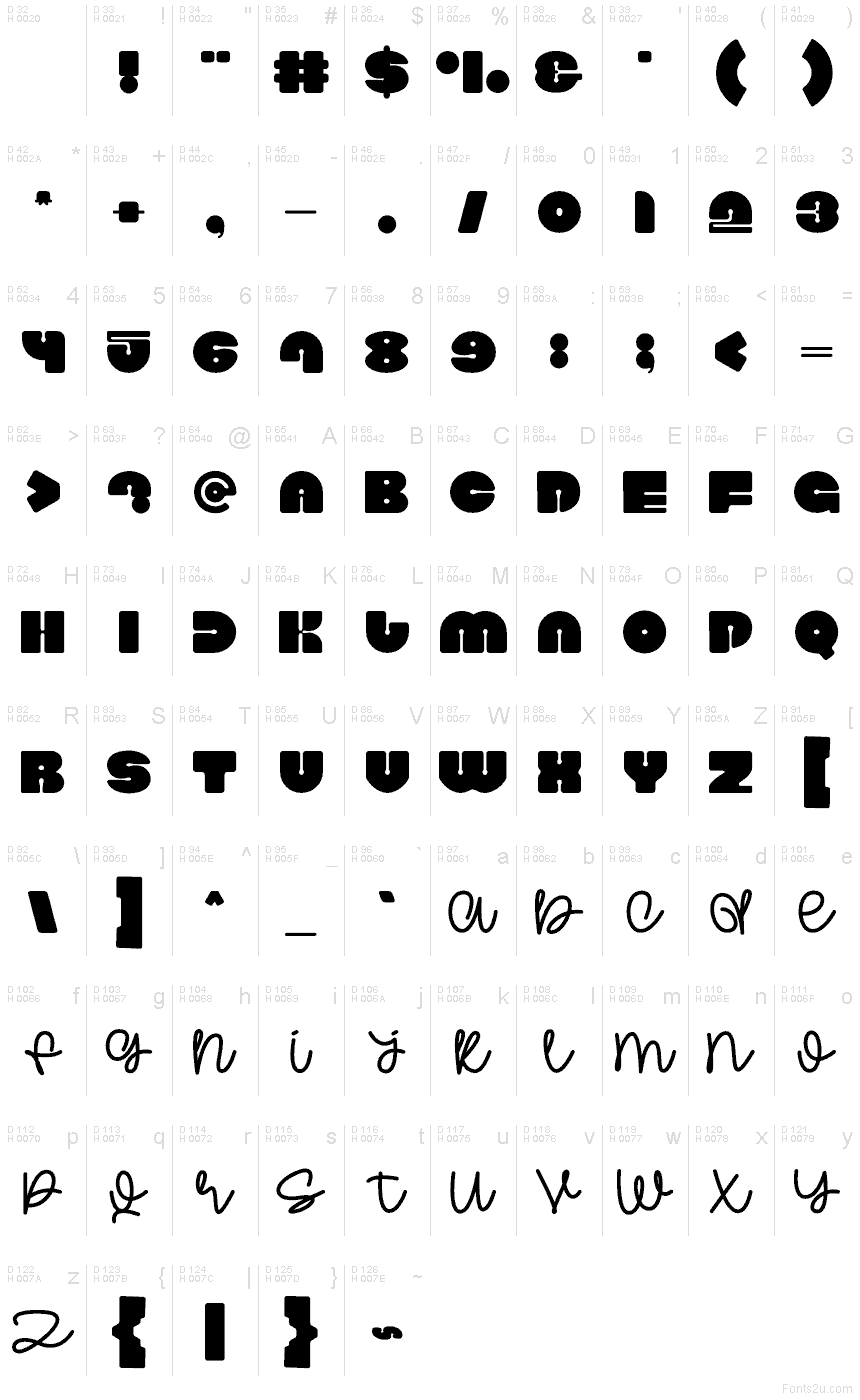
Mixpie
Mixpie font by Jadatype is a groovy display typeface known for its compact and unified appearance. With smooth-flowing lines, Mixpie’s stylish characters create a retro yet modern vibe. Every letter is stylized and artistic to ensure full originality and visibility to your projects.